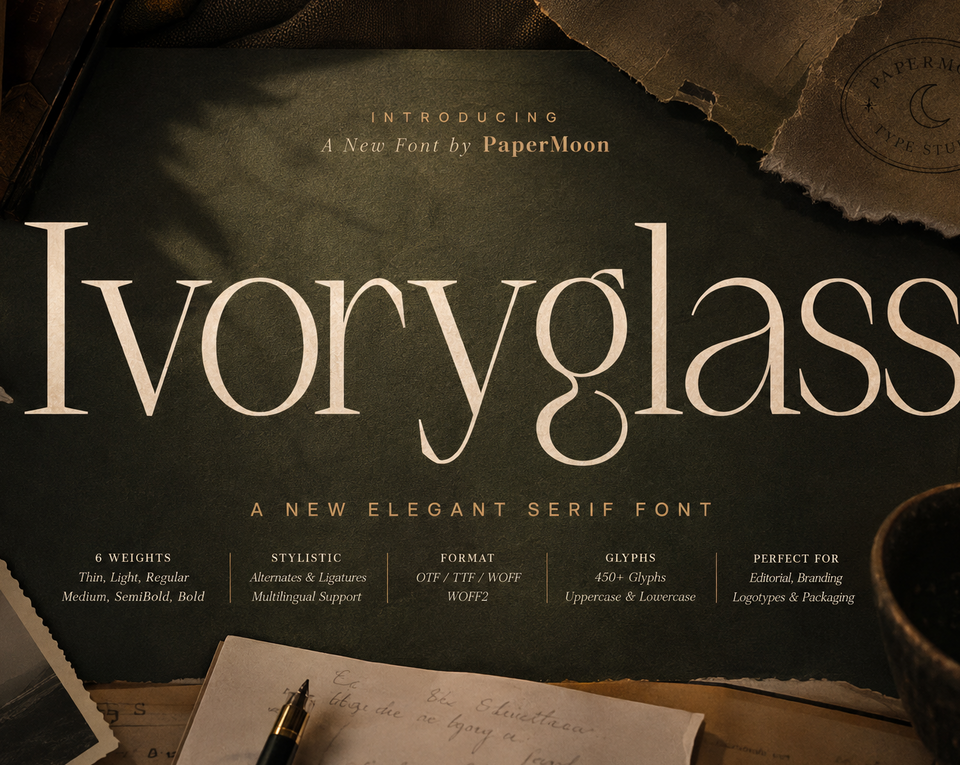
IvoryGlass — Minimalist Serif Font
IvoryGlass is a refined minimalist serif font built for designers who want clean elegance without visual noise. Its delicate serifs, balanced letterforms, and measured contrast deliver a modern serif character that reads as premium in every context — from boutique logos to editorial headlines. If your project calls for an elegant typeface that stays timeless rather than trendy, this is the serif font to reach for.
Key Features: IvoryGlass includes standard and stylistic ligatures through OpenType GSUB features, plus alternate character forms accessible through the salt and aalt feature tags. These ligatures and alternates let you create polished letter combinations and distinctive typographic details without leaving your design software. The clean, refined letterforms are built for legibility at both headline and body sizes, making this a versatile serif font for projects that need clarity alongside character.
Applications: Use IvoryGlass for luxury branding and brand identity, logo design and wordmarks, editorial layouts and magazine covers, product packaging and labels, wedding invitations and event stationery, advertisements and marketing collateral, social media graphics, photography watermarks, and premium web typography. Its minimalist style makes it a natural fit for upscale boutiques, food and beverage brands, beauty and fashion campaigns, creative agency identities, and any project where sophistication and simplicity need to work together.